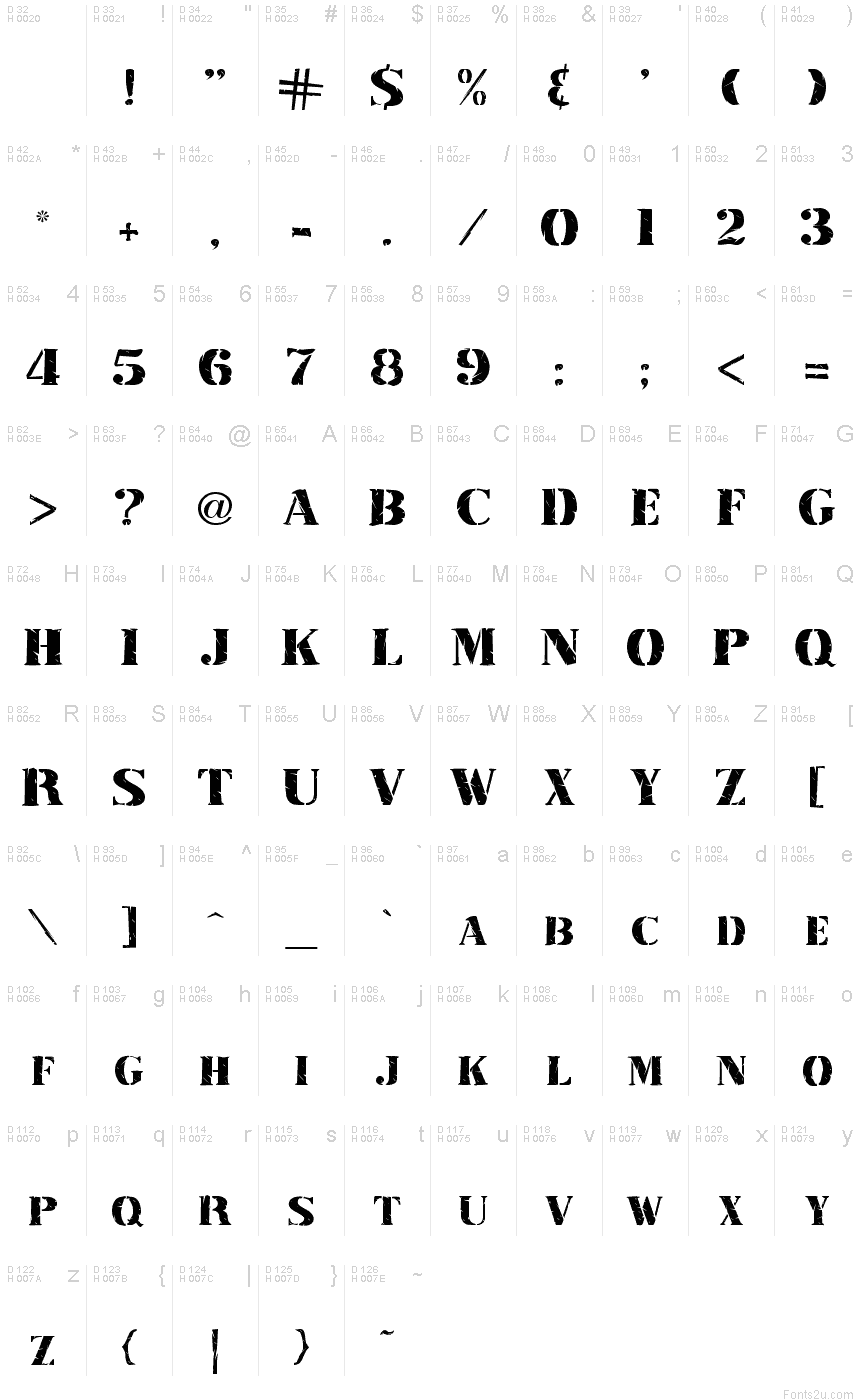
Inkpad Regular
Inkpad font by CompuWorks turns classic serif letters into rough, inky blocks, dotted with sharp cuts and splashes that feel almost hand-stamped. It’s a free font that lands with strong, textured impact, great when you want type to feel tactile and a little worn without losing legibility.
This free font works especially well for book covers, posters, album art, bold logos, packaging, event flyers, and dramatic social media graphics. Inkpad holds up at large sizes where its chipped details can really show, and it pairs nicely with a clean sans serif set smaller for supporting text.